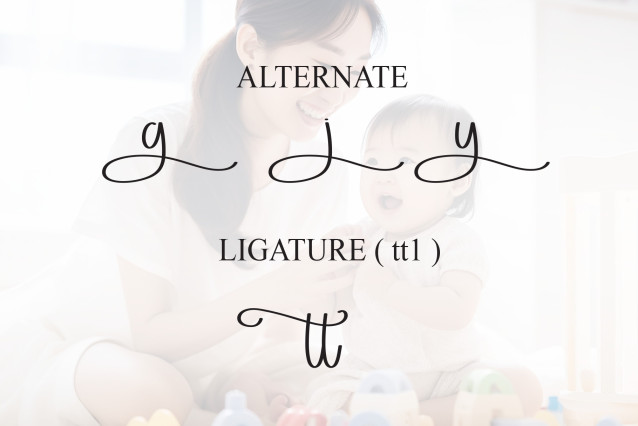
Babysitter Script Font
Babysitter Script Font is a charming handwritten font that looks playful and friendly. Its smooth, natural strokes make it feel warm and inviting, perfect for anything related to kids or a cozy atmosphere!